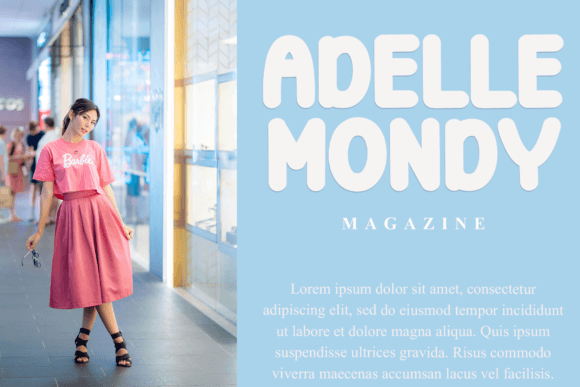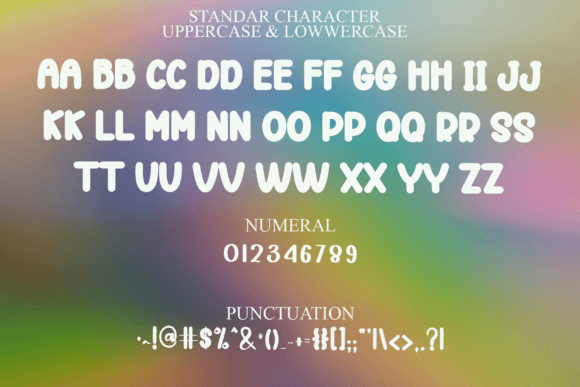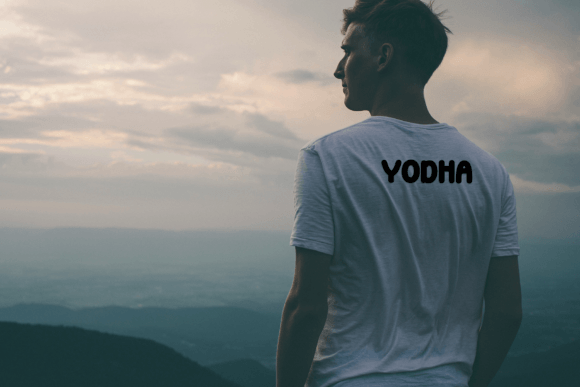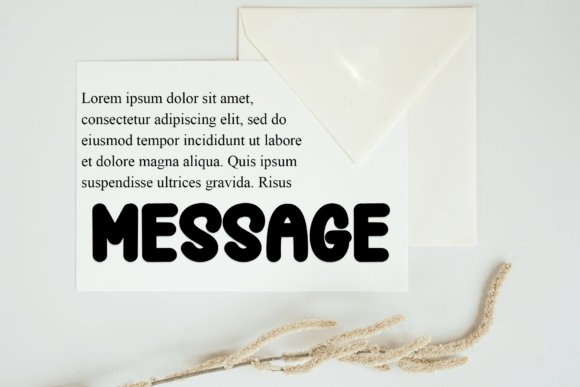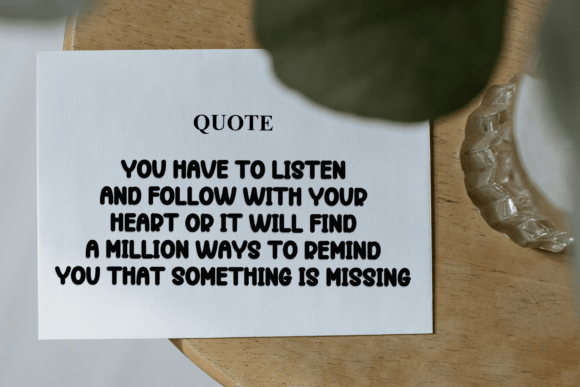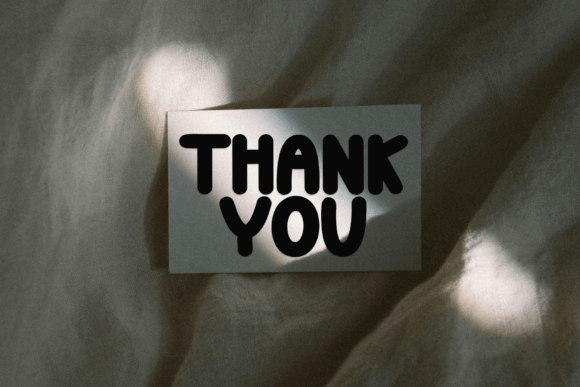
Introduction to Showcase Font
As a designer, there’s nothing quite like the thrill of finding the perfect font to elevate a creative project. Remember that one moment when you stumbled upon a font that made your entire design pop? For me, it was when I discovered the Showcase Font – a charming sans-serif font that exudes warmth and personality.
With its playful yet legible style, the Showcase Font adds a touch of whimsy to any project, making it perfect for greeting cards, invitations, and branding. Its natural strokes and irregularities capture the essence of handmade authenticity, giving your design a unique and high-quality feel. Whether you’re working on a creative project that requires a free download or a design resource with a transparent background, the Showcase Font is an invaluable asset that’s sure to set your work apart.
As a valuable resource for designers, the Showcase Font offers endless possibilities for creative expression. Its high-quality design and versatility make it an ideal choice for a wide range of projects, from digital design to print materials.
Key Features of Showcase Font
- Features a clear and legible design, perfect for showcasing text in a variety of creative projects.
- Supports a wide range of languages, making it a valuable resource for designers working on international projects.
Honest Review: Showcase Font
As a designer, I’m always on the lookout for high-quality design resources that can elevate my creative projects. The Showcase Font is one such resource that caught my attention recently. In this review, I’ll share my honest thoughts on this font.
- What works well: ✨ The Showcase Font has a modern and sleek design that’s perfect for creative projects. It’s also highly customizable, allowing designers to tweak the font to suit their needs. Additionally, the font is free to download, making it an excellent addition to any designer’s toolkit.
- What doesn’t: ⚠️ One of the limitations of the Showcase Font is its lack of support for transparent backgrounds. This can be a bit of a letdown for designers who need to create graphics with transparent elements.
Overall, I’m impressed with the Showcase Font’s high quality and versatility. While it may have some limitations, it’s a great addition to any designer’s design resource library. With its modern design and customizable options, it’s perfect for a wide range of creative projects. Whether you’re working on a branding project or a digital graphic, the Showcase Font is definitely worth considering.
Showcase Font
The Showcase Font is a high-quality design resource perfect for creative projects. With a free download available, you can easily incorporate this font into your next project. Its transparent background makes it ideal for use on a variety of backgrounds.
Tips for Getting the Most Out of Showcase Font
To get the most out of the Showcase Font, experiment with different font sizes, colors, and styles. You can also combine it with other design elements to create unique and eye-catching designs.
The Showcase Font is ideal for a variety of creative projects, including presentations, social media graphics, and marketing materials. Its high-quality design and transparent background make it perfect for use on a variety of backgrounds.
Q: Is Showcase Font suitable for high-quality print projects?
Yes, Showcase Font is designed to be used in high-quality print projects. Its high-resolution design ensures that the font looks crisp and clear even at large sizes. You can use it in brochures, business cards, or any other print material that requires a professional and polished look.